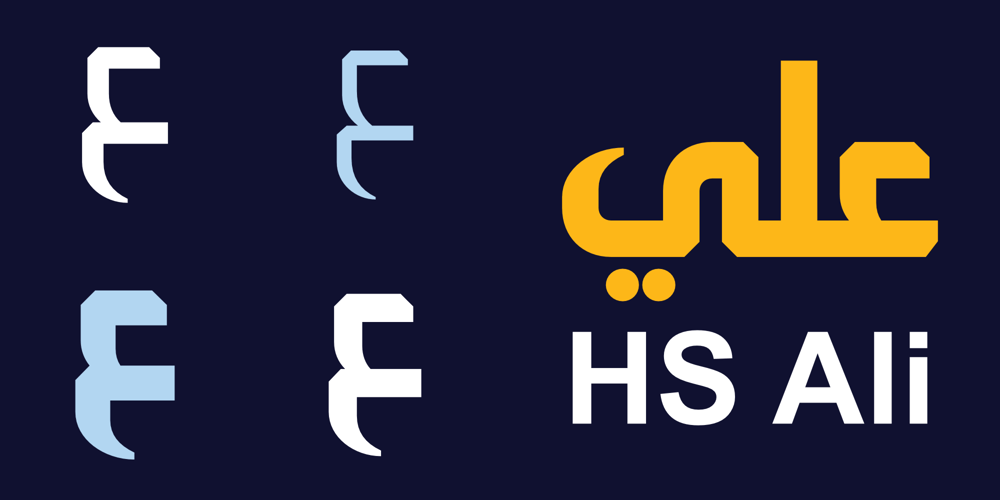
HS Ali Font Family was designed by Hasan Abu Afash and published by Hiba Studio. HS Ali contains 4 styles and family package options. HS Ali was designed in memoriam of my brother – Ali Abu Afash who was martyred during the last aggression on Gaza in summer 2014. HS Ali introduced a modern OpenType Arabic typeface, which had the characterstic, features of Kufi style with noticeable both curvy and sharp segments; beside the refinements of its letters that made it more readable. HS Ali is a display font that has been designed to be used in titles in modern graphic and publication projects. It supports Arabic, Persian, Urdu and Kurdish languages and contains four weights: Light, regular, medium and bold which can be condsiderd as and elaboration to the library of Arabic fonts contemporary models that meet the variant purposes of designs for all tastes.